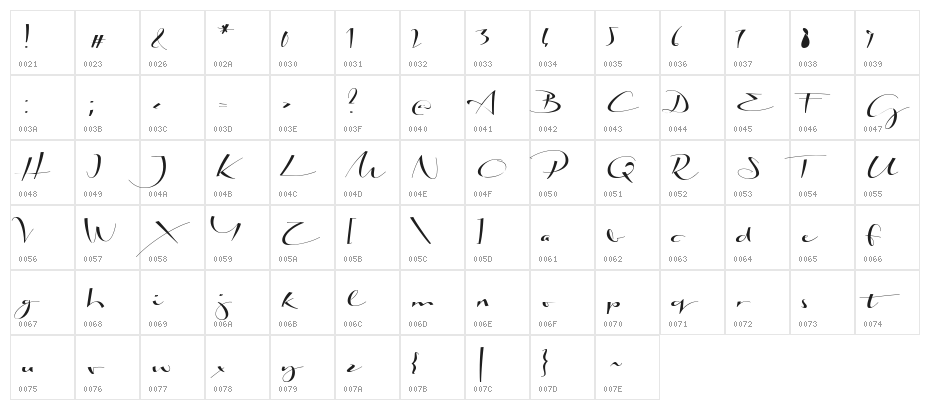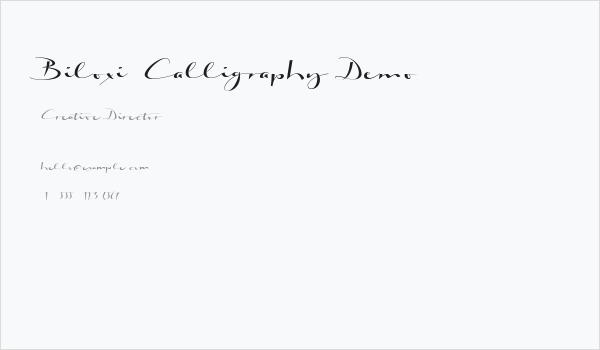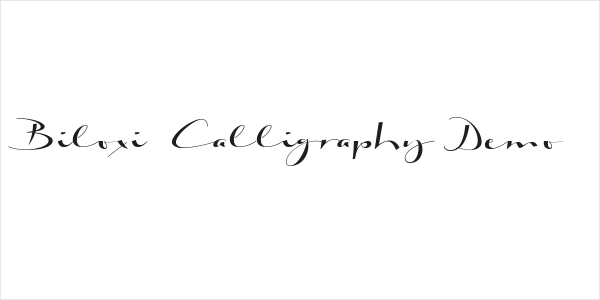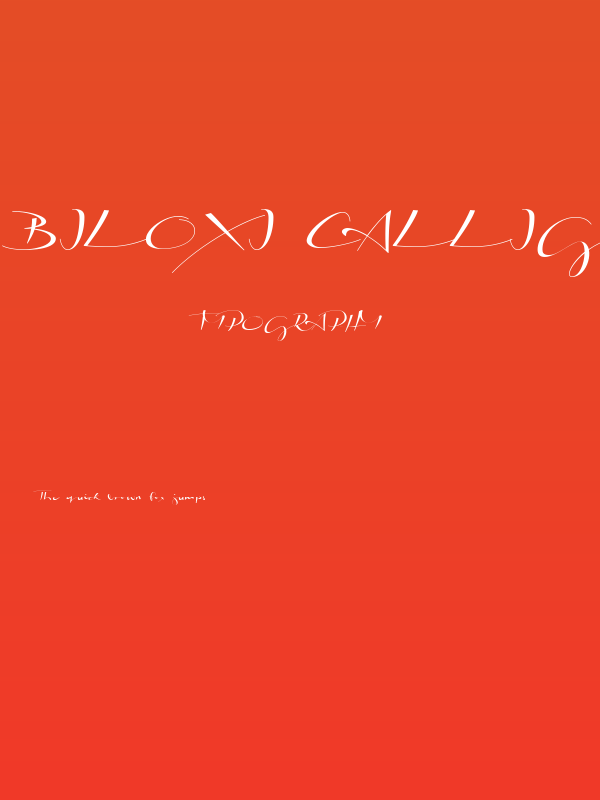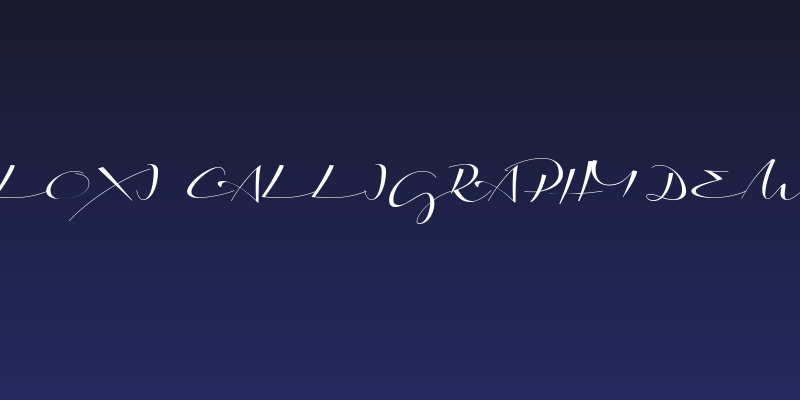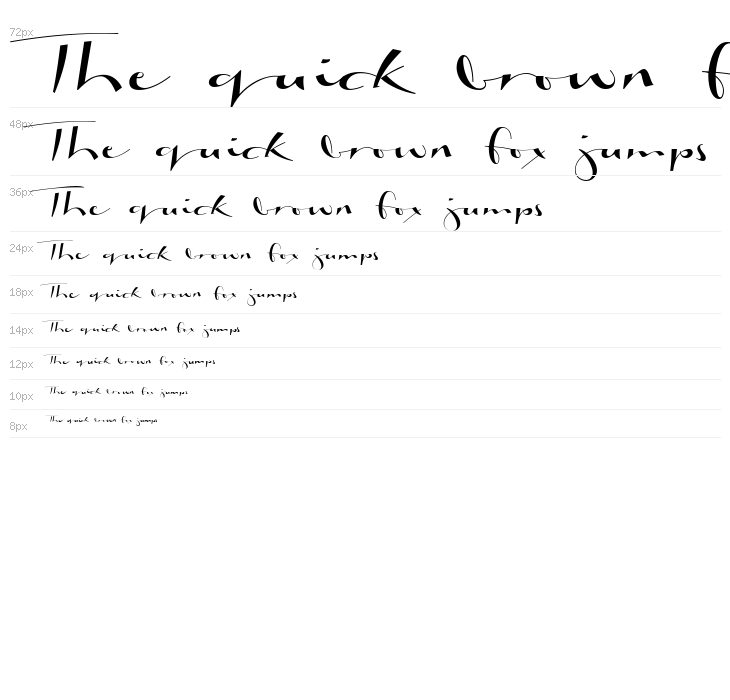
Biloxi Calligraphy Demo Font
Biloxi Calligraphy Demo Description
This elegant calligraphy font features fluid, sweeping strokes that create a sense of movement and grace. The uppercase letters are characterized by their dramatic flourishes and loops, while the lowercase letters maintain a more subtle elegance. The numerals and special characters are designed with the same attention to detail, ensuring a cohesive look across all text. The font's overall style is both sophisticated and artistic, making it ideal for projects that require a touch of refinement and creativity.
Use CaseLogos, Invitations, Artistic projects
Proposed ProjectsIdeal for wedding invitations, elegant branding, artistic posters, and personal stationery.